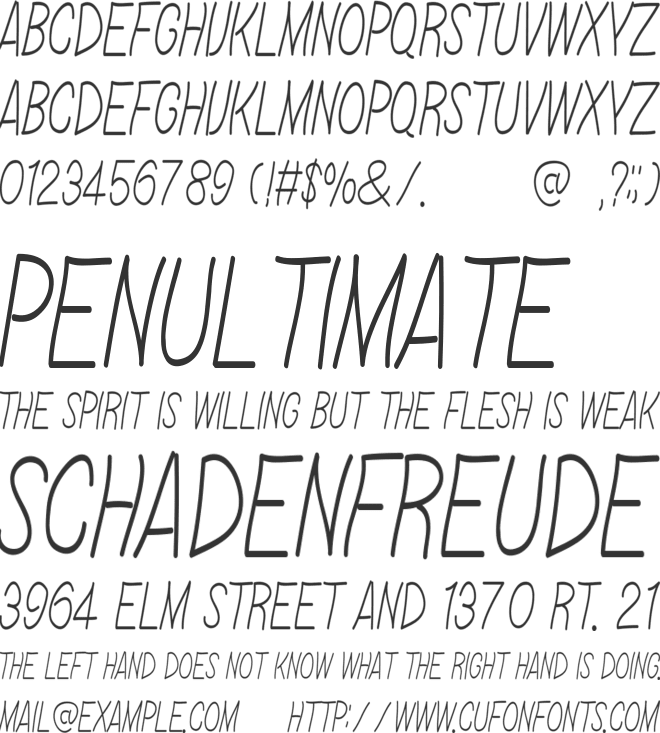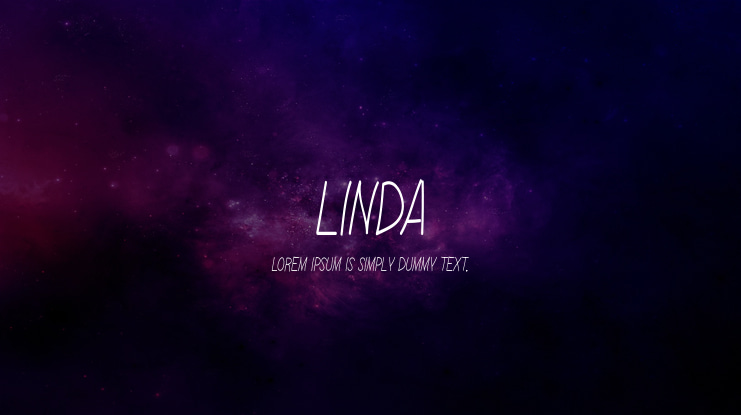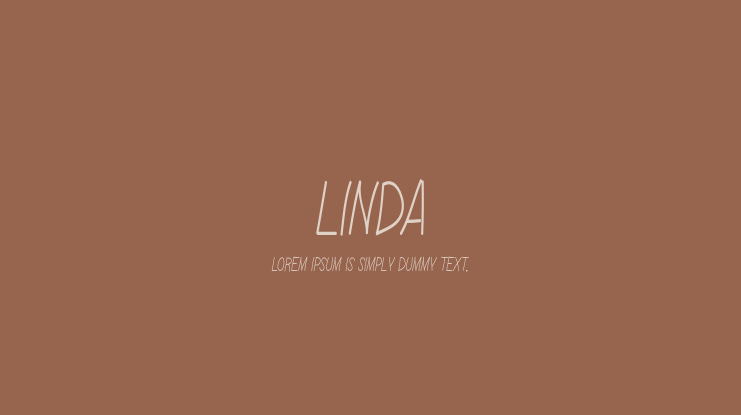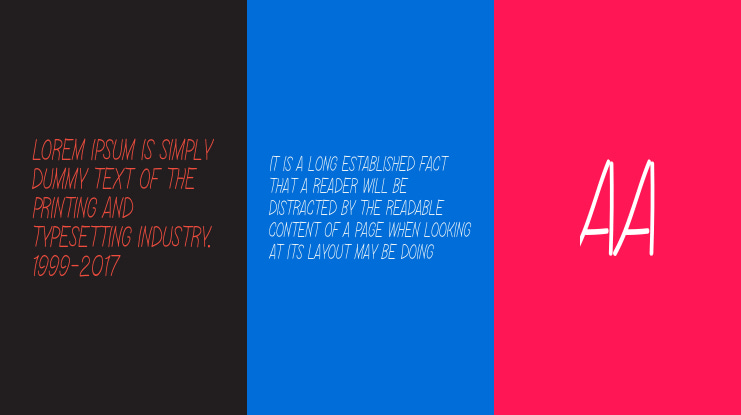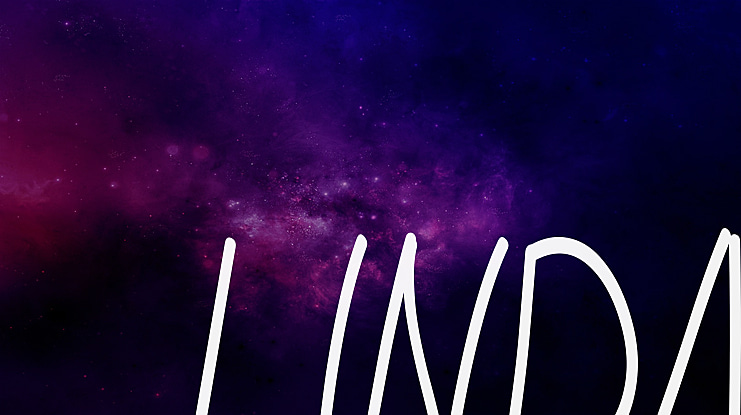
Linda Font
Linda Farmhouse is a simple and natural handwritten font. No matter the topic, this font will be an incredibly asset to your fonts’ library, as it has the potential to elevate any creation.